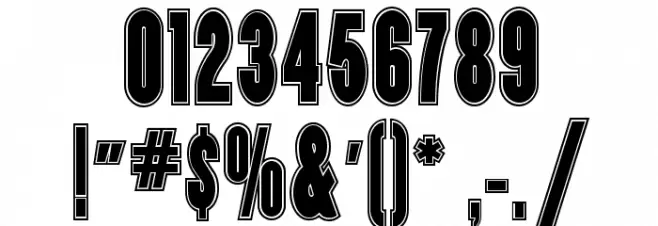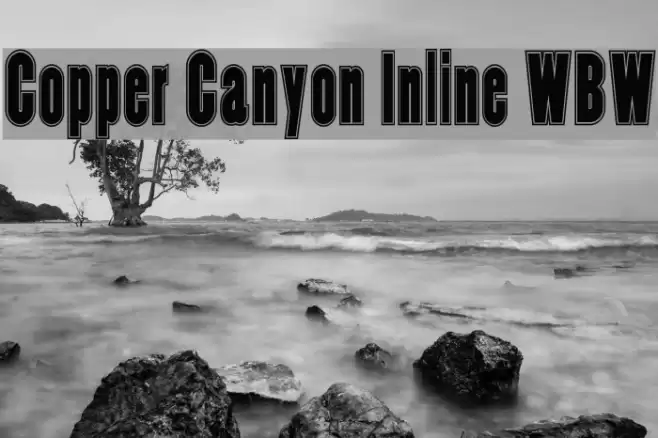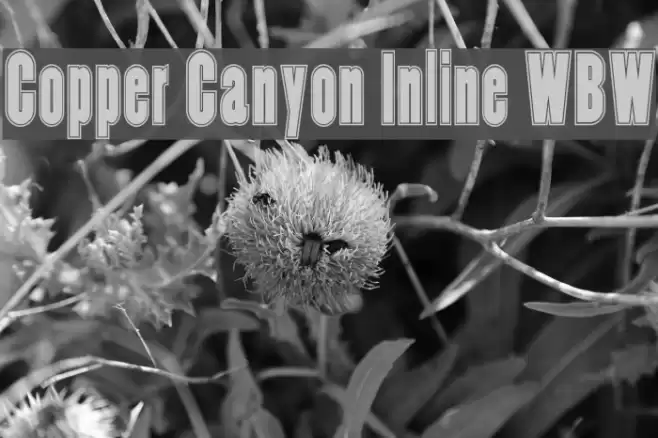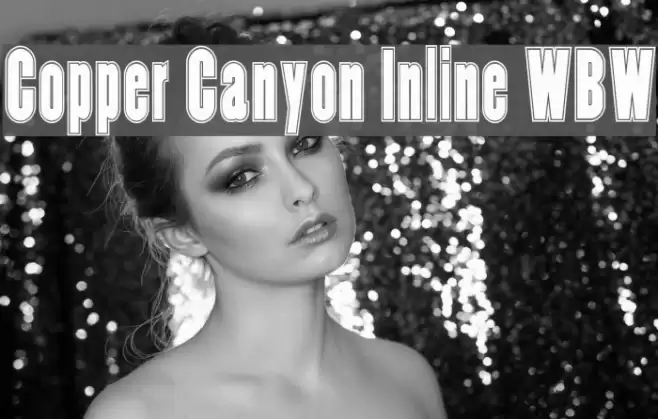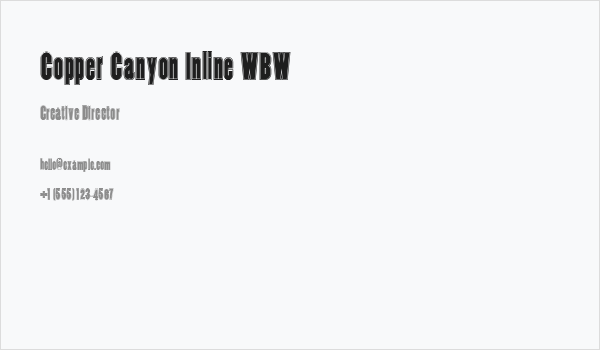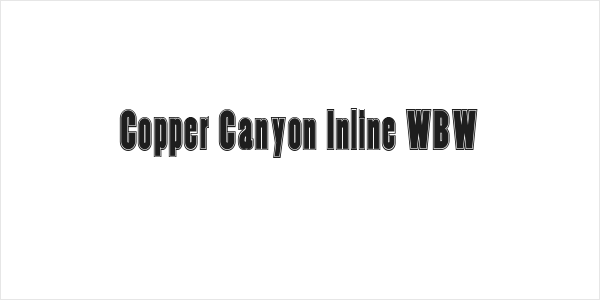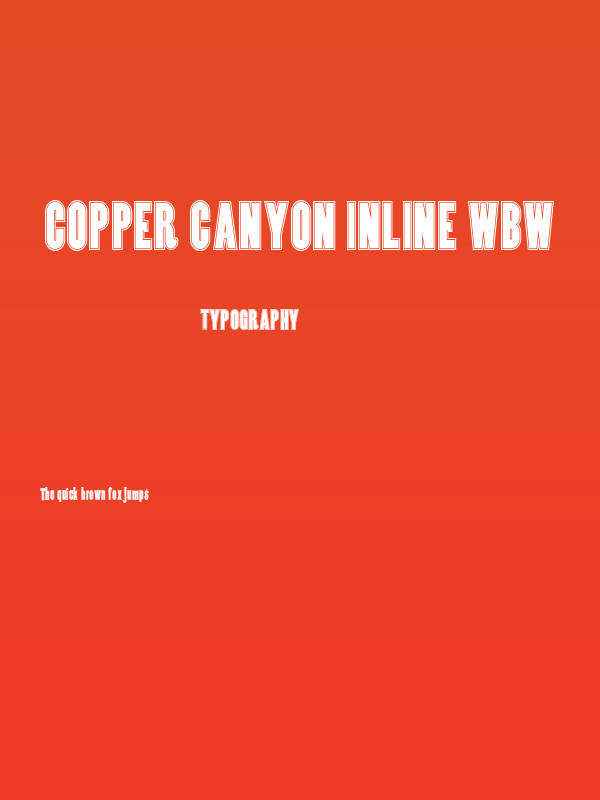
Copper Canyon Inline WBW Font
Copper Canyon Inline WBW Description
This font features a bold, impactful design with an inline style that adds depth and dimension to each character. The uppercase and lowercase letters are uniformly bold, with a strong presence that commands attention. The numbers and special characters maintain the same boldness, ensuring consistency across all text elements. The inline detail within each character creates a unique visual effect, making the font suitable for eye-catching headlines and titles. Its robust structure and clear lines make it highly legible, even at smaller sizes, while the inline detail adds a touch of sophistication.
| Proposed Projects | Ideal for posters, logos, headlines, and branding materials where a bold statement is needed. |